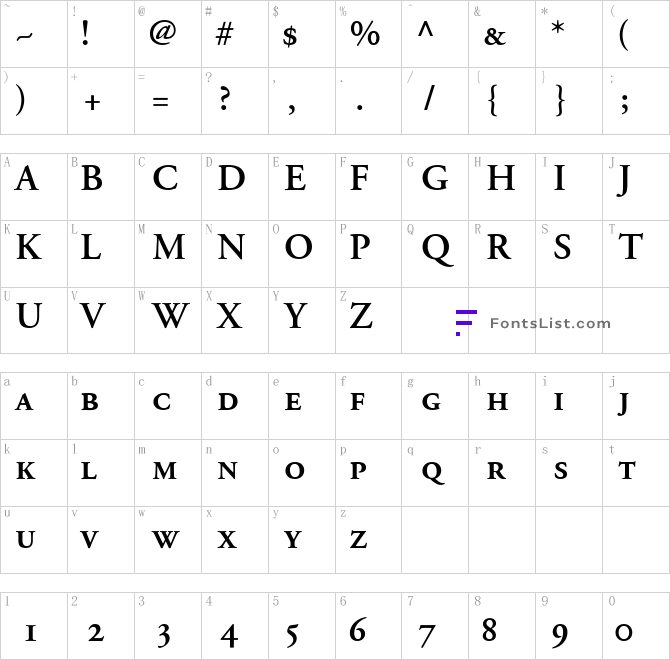
- Font Name:AGaramond RegularSC
- Full Name:Adobe Garamond Semibold Small Caps & Oldstyle Figures
- PostScript:AGaramond-SemiboldSC
Adobe-Garamond-Semibold-Small-Caps-Oldstyle-Figures.ttf is a very beautiful artistic font, Adobe-Garamond-Semibold-Small-Caps-Oldstyle-Figures.ttf is widely used in the design and printing of various books and pictures,Adobe-Garamond-Semibold-Small-Caps-Oldstyle-Figures.ttf has a strong visual impact,Adobe-Garamond-Semibold-Small-Caps-Oldstyle-Figures.ttf is a commonly used font in newspapers, magazines and books, and is used in posters, e-commerce Poster design, store design, logo design, font design and other fields.Adobe-Garamond-Semibold-Small-Caps-Oldstyle-Figures.